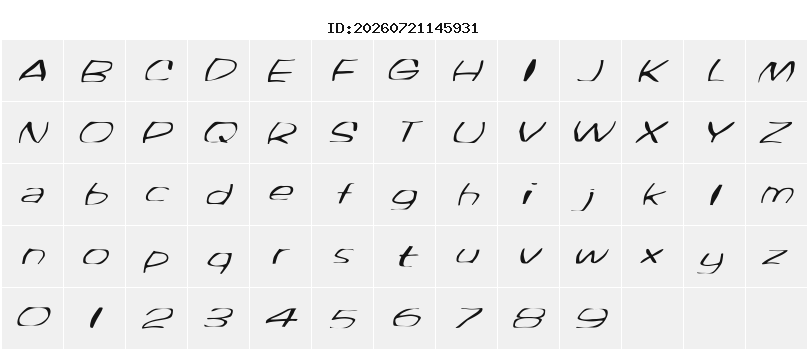
About FZ WARPED 33 ITALIC.ttf
FZ WARPED 33 ITALIC.ttf is a modern, elegant sans-serif font designed for ultimate readability and visual harmony. Perfect for branding, headlines, web design, and print materials.